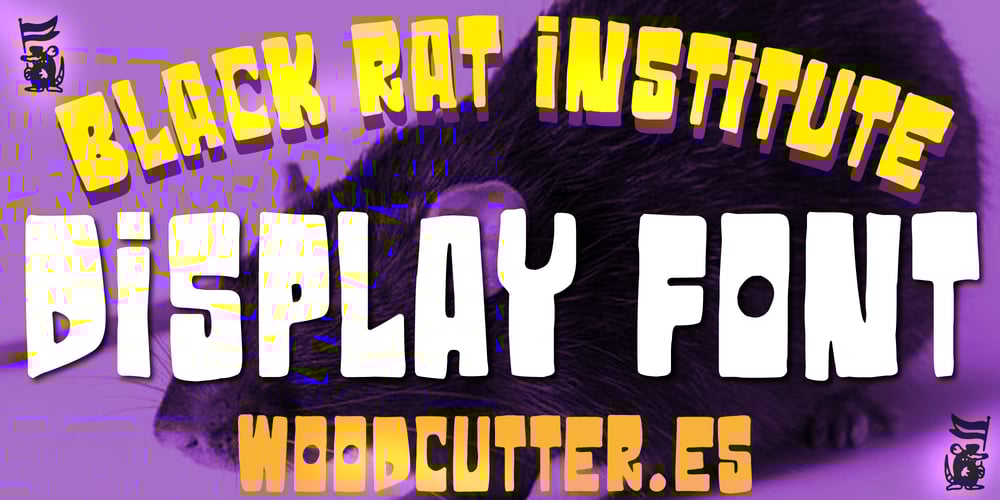
Black Rat Institute
Black Rat Institute font
Black Rat Institute Font Family was designed by Jordi Manero and published by Woodcutter. Black Rat Institute contains 1 styles and family package options. “Black Rat Institute” is an uppercase font with accents, featuring a rough and animated aesthetic. Its letters evoke the style of classic hooligan graffiti, with strong, aggressive, and slightly chaotic strokes. Each character conveys energy and rebellious attitude, making it ideal for projects seeking an irreverent and chaotic touch. Though it has a hand-drawn appearance, its solid structure adds an air of authority and defiance. It’s perfect for designs related to urban culture, sports, or street movements.